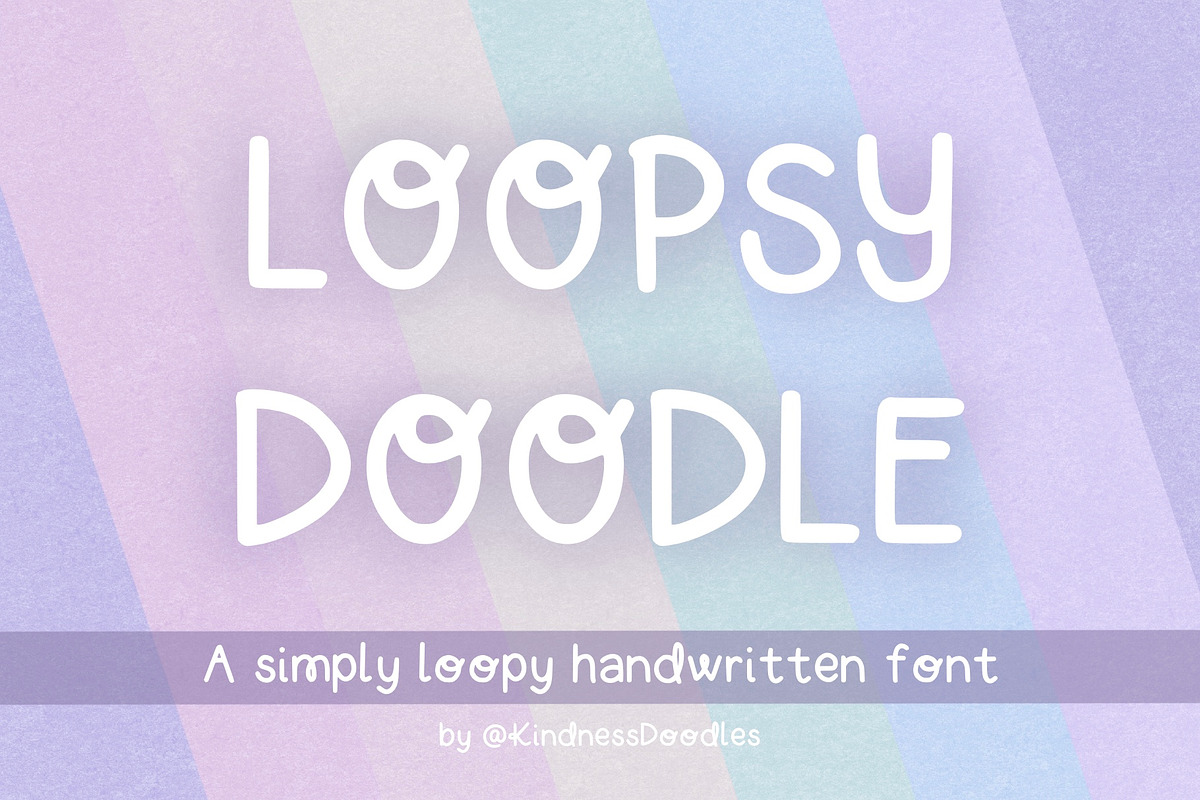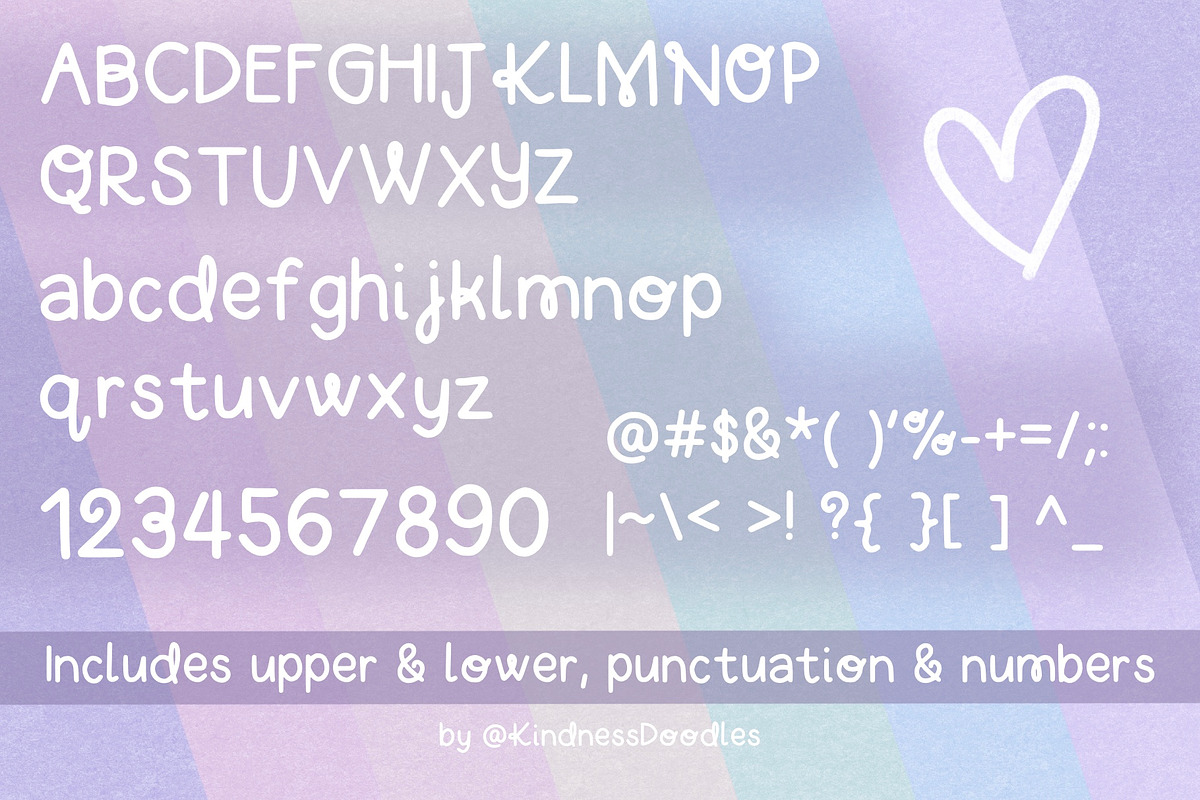
Loopsy Doodle
A simply loopy handwritten font made with love by @KindnessDoodles!
This super fun font comes in both TTF and OTF formats and contains 98 total glyphs, including English alphabet, numbers, and 36 of the most commonly used punctuation characters.
This cute font is for use anywhere you type, create, craft, or design.